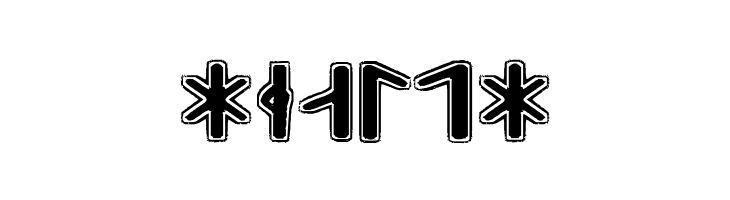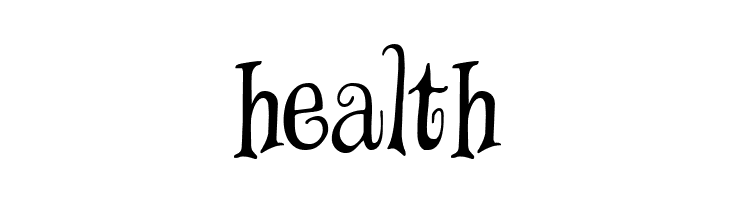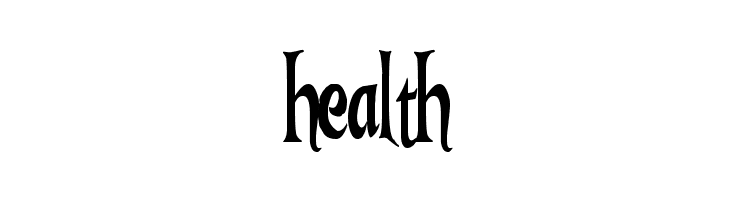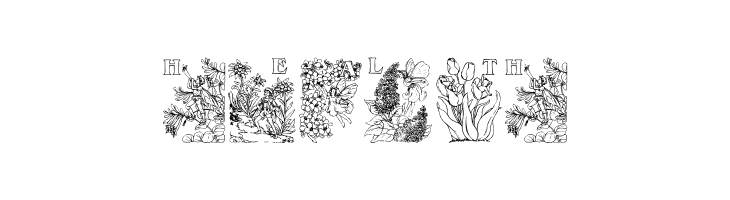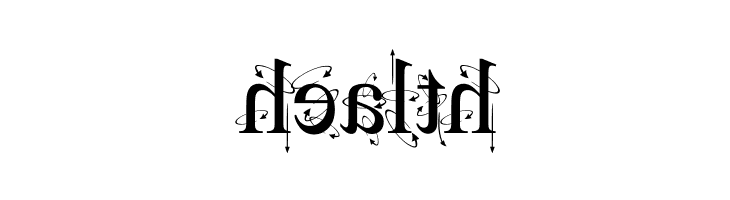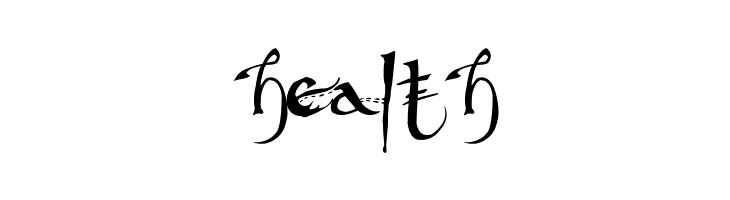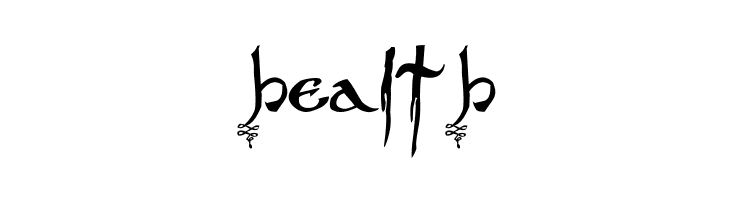
A bold, decorative typeface inspired by ancient runic alphabets with geometric shapes.
A decorative font inspired by vines and branches, featuring organic and intricate designs.
A decorative serif font with floral and fairy illustrations entwined with each letter.
A whimsical, decorative font with playful swirls and loops.
An ornate, gothic-style font with intricate embellishments and whimsical details.
A whimsical and decorative font with celestial embellishments and swirling accents.
A bold, gothic-inspired font with sharp, angular edges and intricate details.